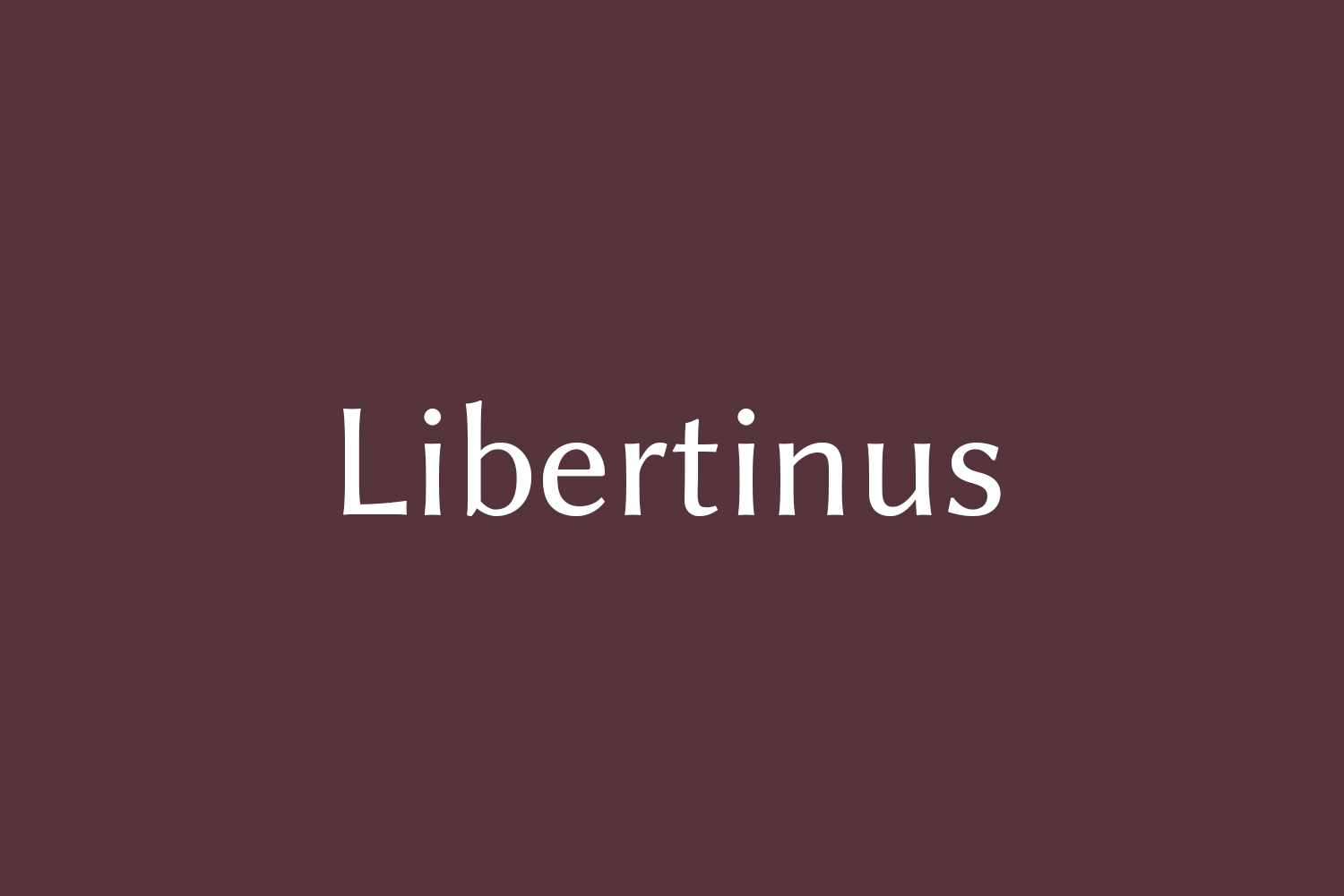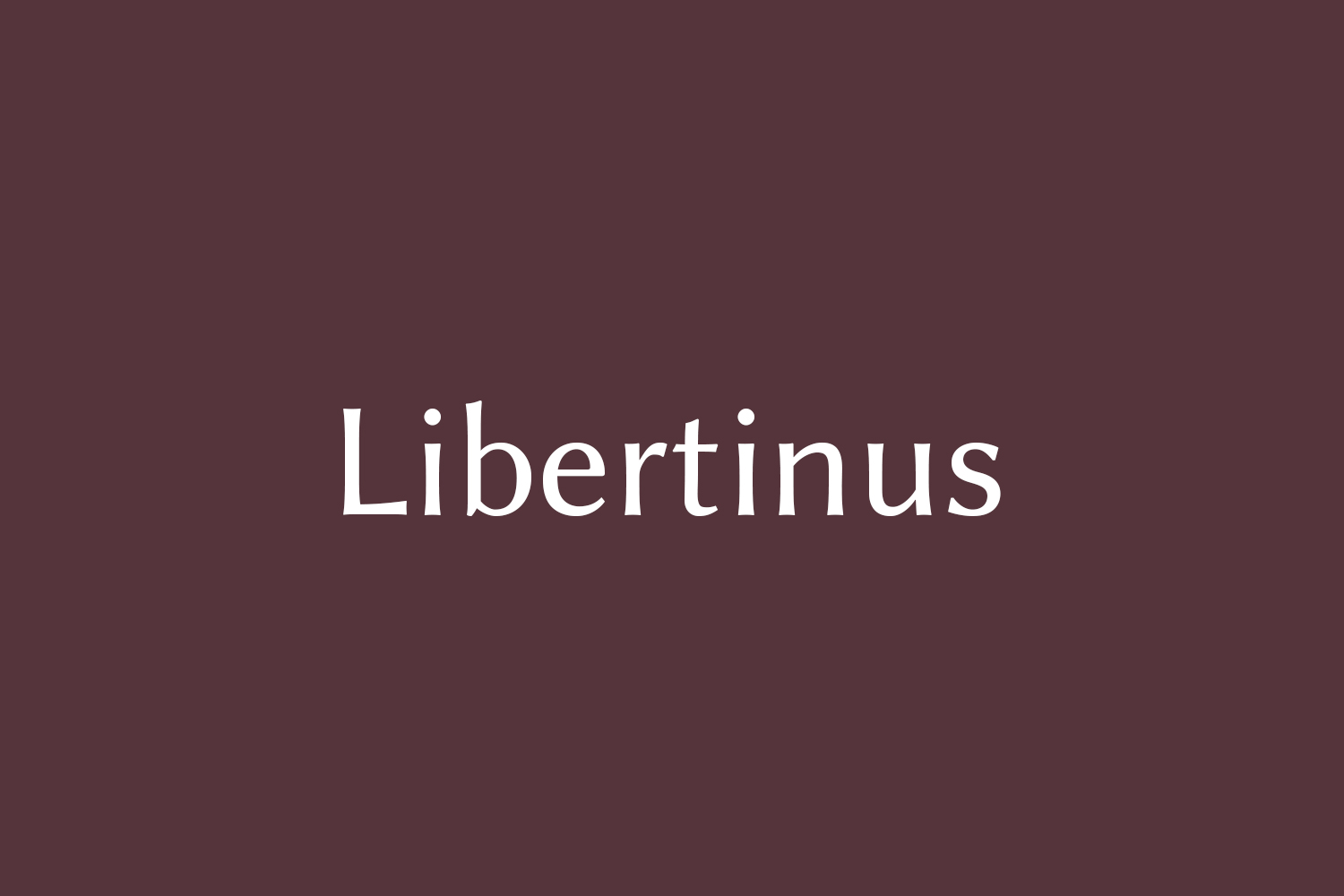
Libertinus Free Font Family is a fork of the Linux Libertine and Linux Biolinum fonts that started as an OpenType math companion of the Libertine font family. It has grown to a full fork to address some of the bugs in the fonts. Thanks to Frédéric Wang for coming up with the name Libertinus.